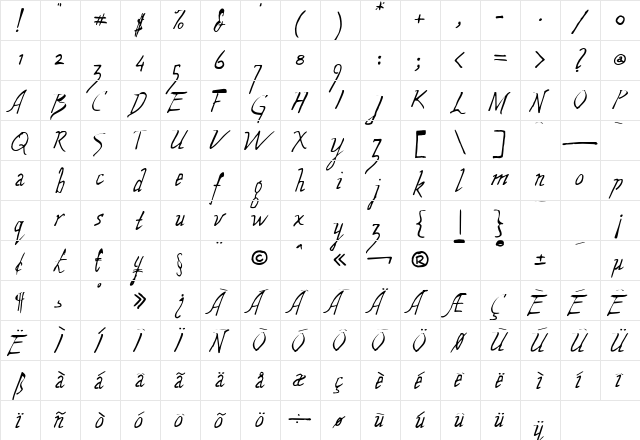
Wolven Script Regular Font Preview
Wolven Script Regular
Design Context for Wolven Script Typeface
Wolven Script flows with the natural rhythm of handwritten lettering, making it ideal for designs that call for warmth and personal expression.
Font Pairing: Combine Wolven Script with a simple geometric sans for maximum contrast — the tension between flowing curves and clean structure is a classic typographic pairing.
Pro Tip: Pair Wolven Script with a clean sans-serif for supporting text. The contrast between fluid script and geometric structure creates an elegant typographic hierarchy.